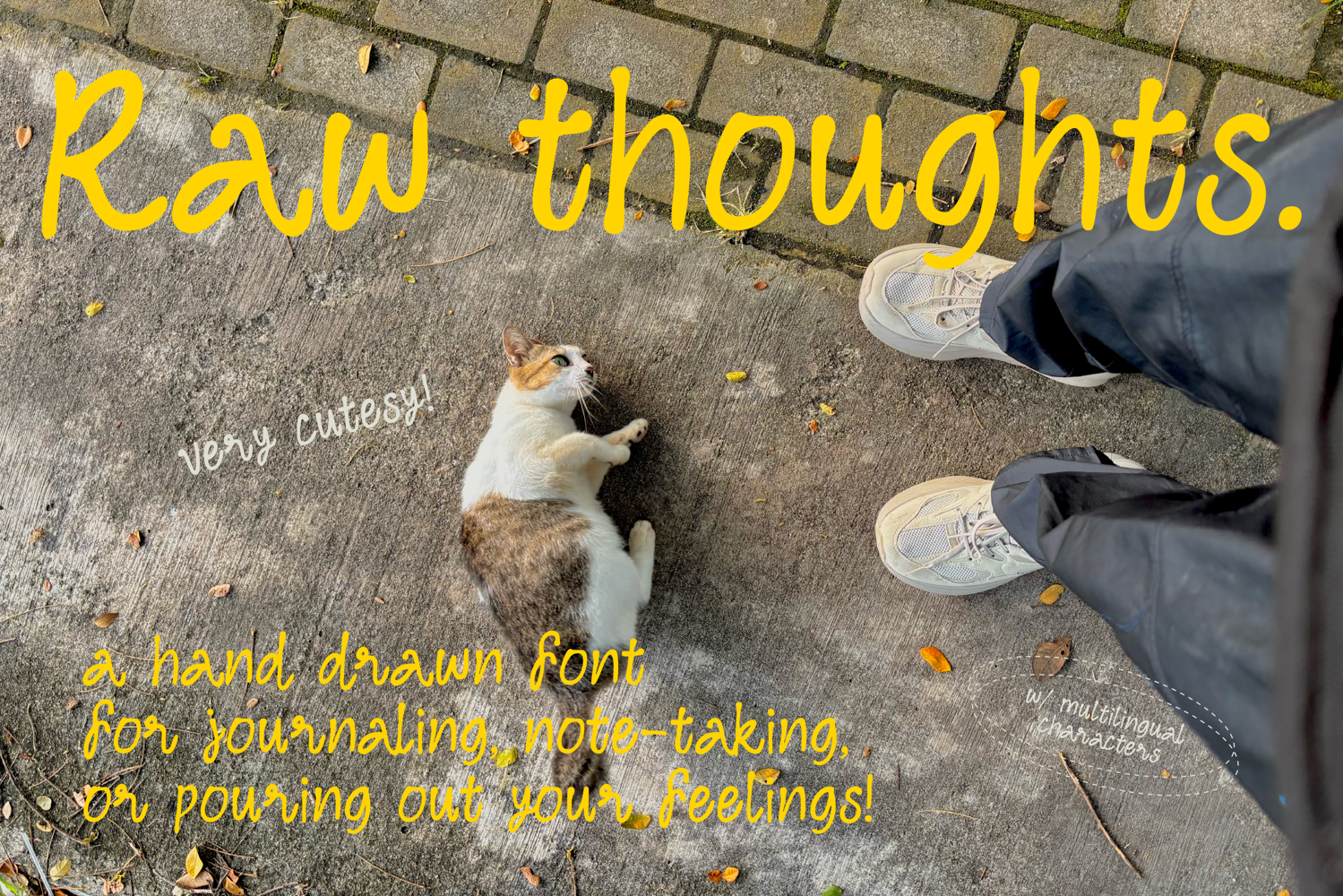
Raw Thoughts - Handwritten Font
Raw Thoughts is a hand-drawn semi-script font that captures the immediacy of spontaneous handwriting. Its organic strokes and natural imperfections evoke unfiltered expression, giving the font a raw and human quality that feels both warm and honest.
Perfect for digital journal, note-taking, diary, branding, handmade product packaging, social media, or any creative design projects.